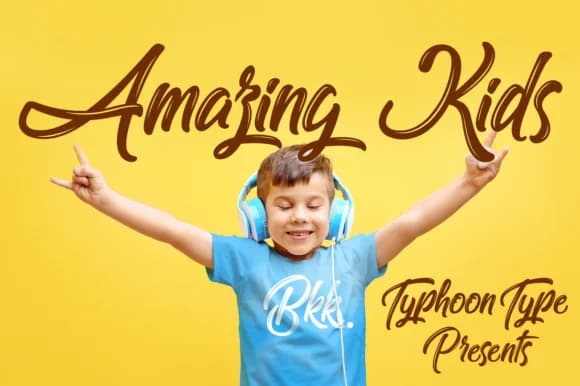
About Amazing Kids Font
Amazing Kids Font by Typhoon Type™ is a playful handwritten script that captures the energy and spontaneity of childhood expression while maintaining genuine usefulness across diverse creative contexts. The letterforms flow with natural, youthful movement and visual warmth that brings personality to any design. Rather than feeling limited to children's projects only, this font demonstrates surprising versatility, it works just as effectively for sophisticated designs that simply want to convey friendliness, approachability, and a touch of humanness that formal typefaces cannot achieve. The character of Amazing Kids makes it particularly well-suited for specific applications where warmth and personality matter most. It excels in creating children's birthday invitation suites with that special handmade quality parents seek. Educational learning cards and school flashcards benefit enormously from its readable yet engaging presence. Craft creators love using it for homemade gift tags and custom product labels that stand out on Etsy or craft fair tables. Playroom wall decal designs, storybook covers, and decorative greeting cards all shine with this font's bouncy, inviting rhythm. Even designers working on branding for children's boutiques and toy companies find its character strikes the right balance between fun and professional. This font brings genuine personality to your typography without sacrificing clarity or practicality. Get Amazing Kids Font on Creative Fabrica and bring handwritten charm to your next creative project.
- Elegant, Flowing, Amazing Kids
Amazing Kids Font is a script font that shines as a display or heading face. Pair it with a clean sans-serif or serif font for body text — the contrast creates a clear hierarchy while the two styles stay balanced and easy to read.